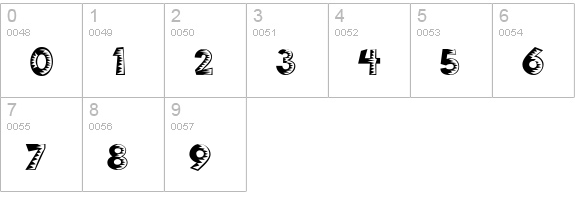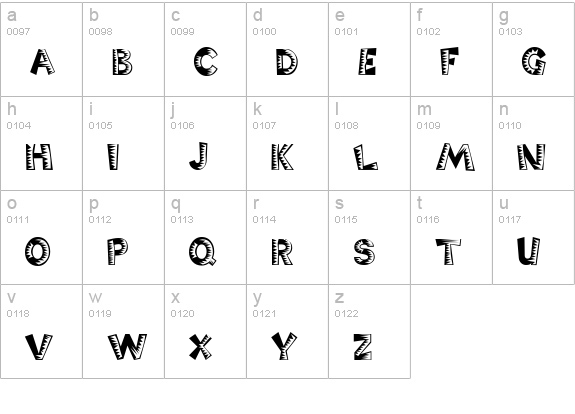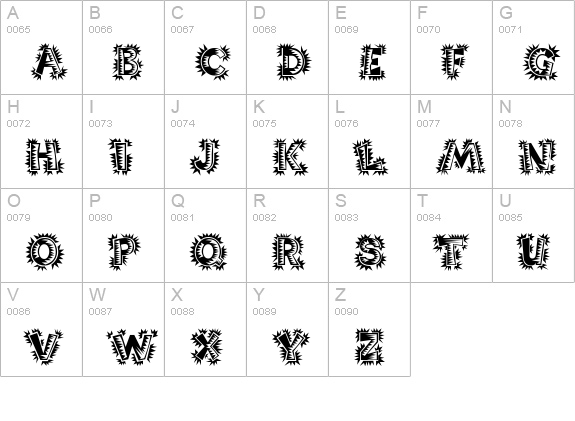
Chorizo Font Details
Chorizo font is a bold and dynamic typeface that exudes a sense of energy and creativity. With its unique design and playful curves, Chorizo is perfect for adding a touch of personality to any project. Whether you're working on a poster, logo, or branding materials, this font will make a bold statement. The best part about Chorizo font is that it is completely free to download at FontsMarket.com. You can easily access this font and start using it in your designs without any cost. So why wait? Give your projects a fresh and vibrant look with Chorizo font today!